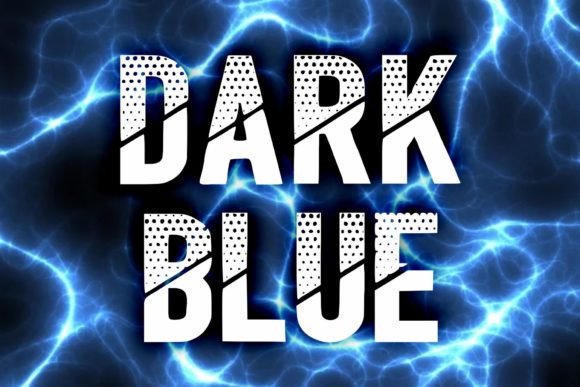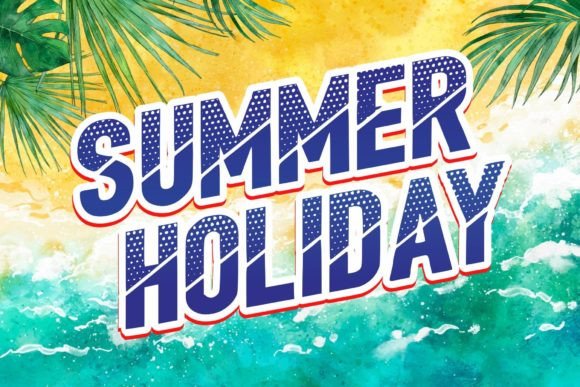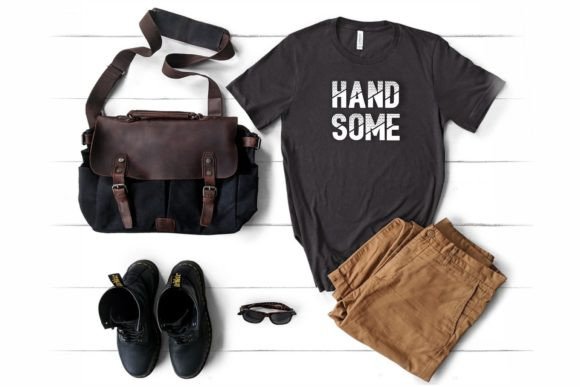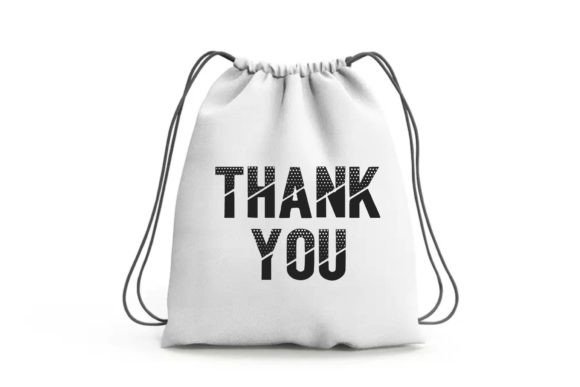
Introducing Black Dot Font: The Ultimate Display Font for Dramatic Emphasis
Are you tired of using the same old fonts for your designs? Do you want to add a touch of drama and exclusivity to your creations? Look no further than Black Dot Font, a unique and fun display font that’s perfect for titles, headings, and words that need a little extra emphasis.
What is Black Dot Font?
Black Dot Font is a carefully crafted display font that’s designed to make a statement. Its distinctive black dots add a touch of whimsy and playfulness to any design, making it perfect for creatives who want to add a little extra flair to their work. Whether you’re a designer, craftsperson, or simply a DIY enthusiast, Black Dot Font is an excellent addition to your font library.
Key Features of Black Dot Font
- Exclusive and Fun Design: Black Dot Font boasts a unique and eye-catching design that’s sure to turn heads. Its black dots add a touch of sophistication and elegance to any design.
- Perfect for Dramatic Emphasis: This font is specifically designed for titles, headings, and words that need a little extra emphasis. It’s perfect for creating striking headlines, attention-grabbing posters, and eye-catching social media graphics.
- Versatile and Adaptable: Black Dot Font is incredibly versatile and can be used on a wide range of design projects, from fashion and beauty to lifestyle and entertainment.
- Easy to Read: Despite its bold and dramatic design, Black Dot Font is surprisingly easy to read, making it perfect for use on both digital and print materials.
How to Use Black Dot Font
Black Dot Font is incredibly easy to use and can be incorporated into your designs in a variety of ways. Here are a few ideas to get you started:
- Headings and Titles: Use Black Dot Font to create striking headings and titles that grab attention and draw the eye.
- Posters and Flyers: Add a touch of drama and emphasis to your posters and flyers with Black Dot Font.
- Social Media Graphics: Use Black Dot Font to create eye-catching social media graphics that stand out from the crowd.
- Logos and Branding: Black Dot Font can also be used to create unique and memorable logos and branding materials.
Benefits of Using Black Dot Font
- Adds Drama and Emphasis: Black Dot Font is specifically designed to add drama and emphasis to your designs, making it perfect for titles, headings, and words that need a little extra oomph.
- Stand Out from the Crowd: With its unique and eye-catching design, Black Dot Font is sure to help your designs stand out from the crowd and grab attention.
- Versatile and Adaptable: Black Dot Font can be used on a wide range of design projects, making it an excellent addition to your font library.
- Easy to Read: Despite its bold and dramatic design, Black Dot Font is surprisingly easy to read, making it perfect for use on both digital and print materials.